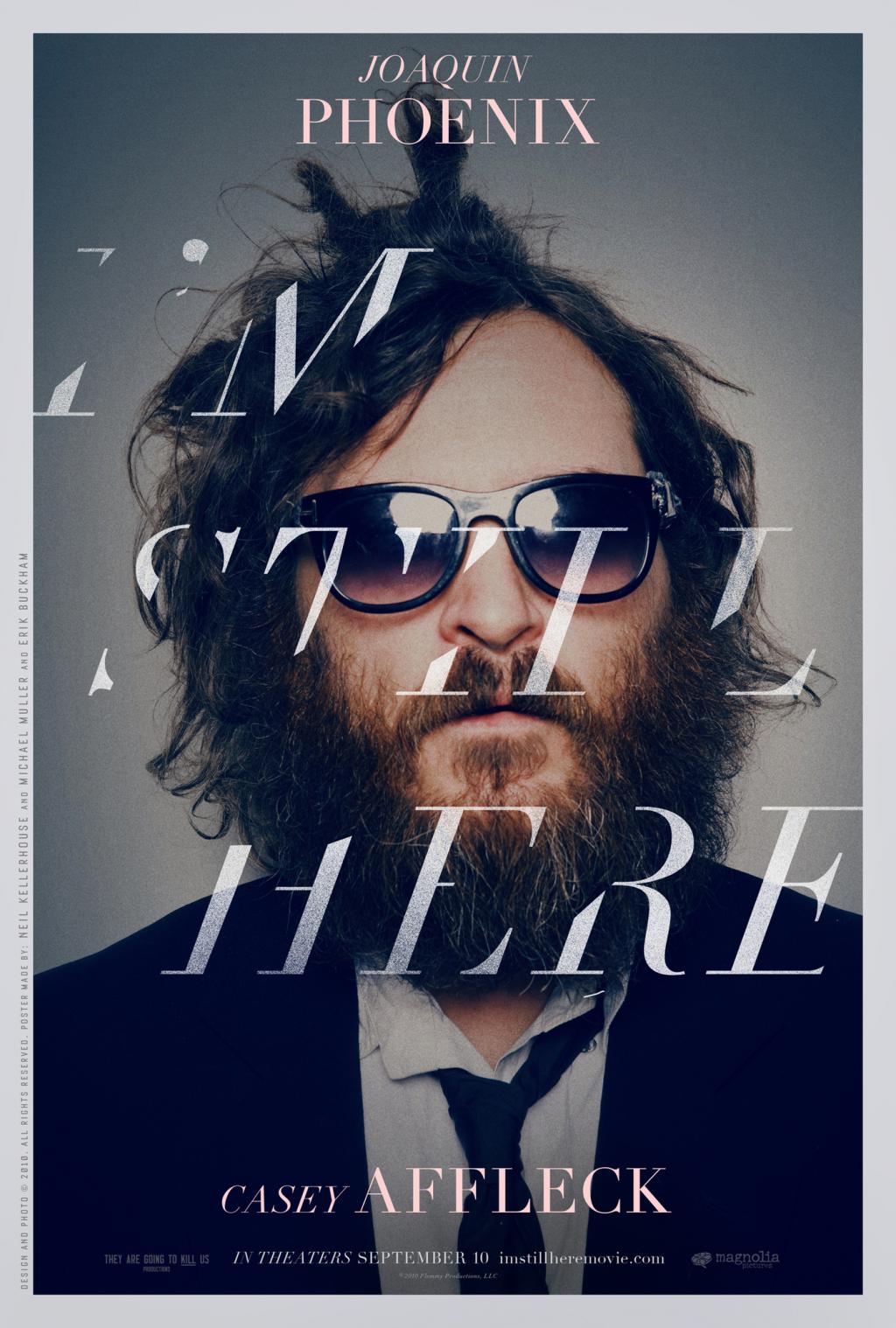
I’m Still Here Font
DramaI’m Still Here is a 2010 mockumentary film that follows the purported retirement and subsequent return to the music scene of American actor Joaquin Phoenix. Directed by Casey Affleck, the film explores themes of fame, celebrity culture, and the concept of authenticity.
The film poster likely showcases the title in HTF Didot Bold Italic, a modern font created by Hoefler & Co. in 1991 for Harper's Bazaar fashion magazine.